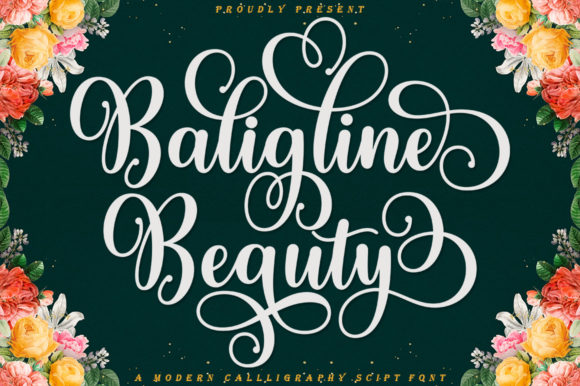
Introducing Baligline Beauty, a captivating script font that will infuse your designs with elegance and playfulness. Its charming characters dance and flow, bringing life to your words and making them leap off the page.
Baligline Beauty is perfect for adding a touch of whimsy and personality to your projects. It's perfect for creating eye-catching logos, enchanting invitations, delightful posters, and any other design that demands attention. This font's effortless style will captivate your audience, leaving them enchanted by your creations.
Picture this: your designs adorned with Baligline Beauty, radiating charm and sophistication. Imagine the impact it will have on your business, with customers swooning over your visually stunning marketing materials and branding. Baligline Beauty isn't just a font; it's an experience that will transform your designs and leave a lasting impression on your audience.
With Baligline Beauty, you can unleash your creativity and create designs that speak to the heart. Its playful nature will add a touch of magic to your projects, while its elegance will ensure they remain timeless and sophisticated. Embrace the beauty of Baligline Beauty and watch as your designs flourish into captivating works of art.
Don't settle for ordinary fonts. Ascend to the realm of extraordinary with Baligline Beauty. Its exquisite charm and enchanting aura will elevate your designs to new heights.